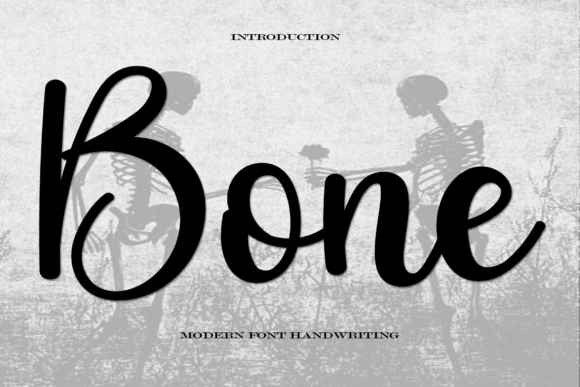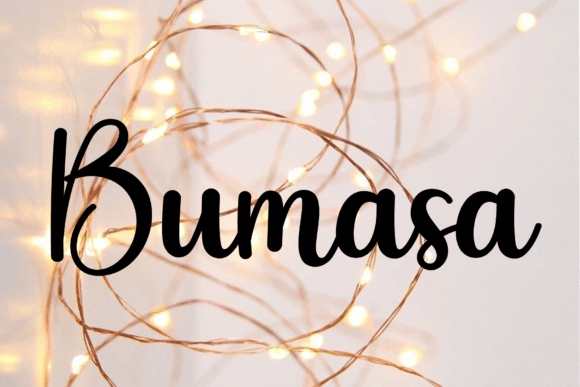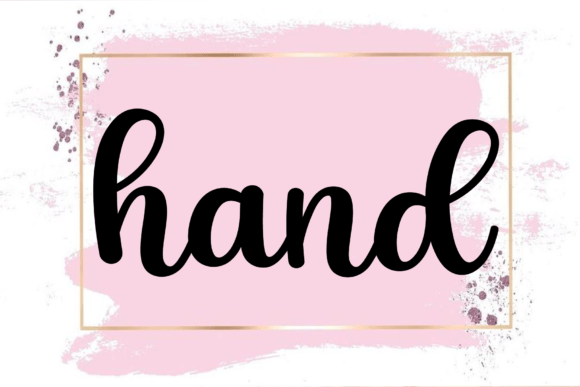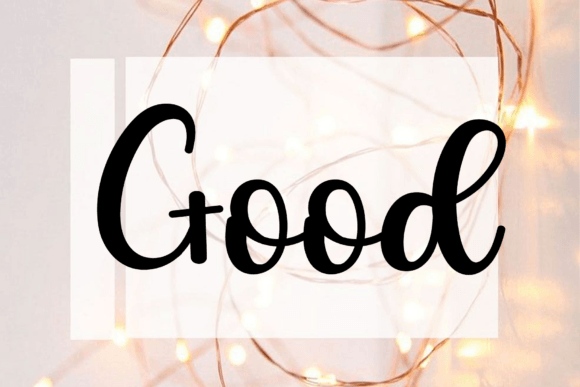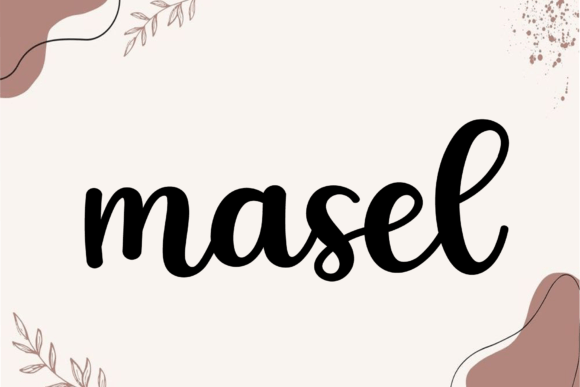
Bone Font
A Classic and Simple Handwritten Font
The Bone Font is a classic and simple handwritten typeface created with a random and freestyle style, making it perfect for a variety of creative projects. Its unique strokes and casual design give your projects a personal, artistic touch. Whether you’re working on logotypes, headlines, branding, or advertising materials, the Bone Font brings a fresh, authentic vibe to your designs.
Ideal for Logotypes and Branding
For logotypes and branding, the Bone Font offers a versatile, approachable style. Whether you’re designing for a creative business, fashion brand, or lifestyle company, this font gives your brand identity a distinctive, memorable touch. Its handwritten feel helps create an authentic, personalized look that resonates with your audience, making it perfect for corporate identity and brand recognition.
Great for Headlines and Posters
The Bone Font is perfect for headlines and posters. Whether you’re designing for music events, movies, or games, this font adds an eye-catching and bold element to your projects. Its simple yet stylish handwritten design makes it perfect for creating impactful, dynamic headlines that grab attention and stand out in any design.
Ideal for Magazines, Books, and Comics
For magazines, books, and comics, the Bone Font offers a classic style with a modern twist. Whether you’re designing for a magazine layout, comic book title, or novel cover, this font adds a playful and creative flair to your text. Its handwritten appearance gives your designs a unique, personal touch, perfect for both print and digital formats.
Perfect for Social Media and Websites
For social media and websites, the Bone Font provides a fresh, easy-going style that works well across various digital platforms. Whether you’re designing for Instagram, YouTube, or personal blogs, this font adds a casual, authentic feel to your content. Its versatility ensures it works for a wide range of projects, from social media graphics to website headers, creating an engaging user experience.
Simple, Legible, and Versatile
Despite its random freestyle design, the Bone Font is legible and easy to use. Its well-balanced strokes ensure your text remains clear and readable, even in small sizes or for longer passages. Whether you’re creating headlines, captions, or body text, this font strikes the perfect balance between playfulness and clarity, making it suitable for a variety of creative applications.
Add Personality and Style to Your Designs with Bone Font
If you’re looking for a classic, simple, and handwritten font to enhance your designs, the Bone Font is the perfect choice. Whether you’re designing logotypes, posters, social media content, or magazines, this font brings a personalized, authentic touch to your work. Let the Bone Font bring a creative, artistic vibe to your projects and help your designs stand out with style.